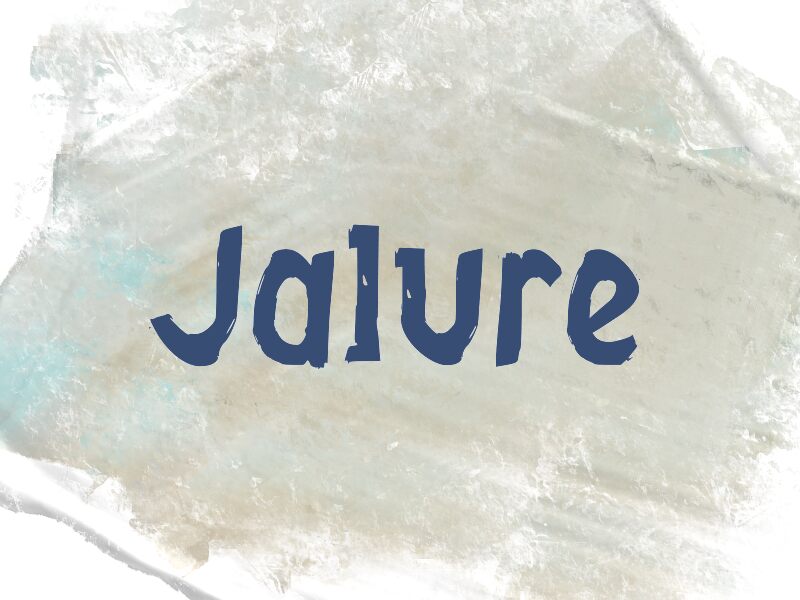
Jalure
Jalure font by wep is a free eroded display typeface with the bold, inky energy of hand-painted letters left out in the rain. Chunky strokes, rough-cut edges, and broken patches of white give it a scraped, almost woodblock feel—messy in a controlled, intentional way. The rhythm between wide, swollen curves and tall, narrow shapes creates a restless texture that pulls the eye across a line of text.
Using Jalure, you can give band posters, zines, horror titles, protest graphics, streetwear branding, and game splash screens a raw, handmade punch. This free font holds up best at larger sizes where its distressed details can breathe; pair it with a clean geometric sans for body copy to keep your layout readable while Jalure does the shouting.